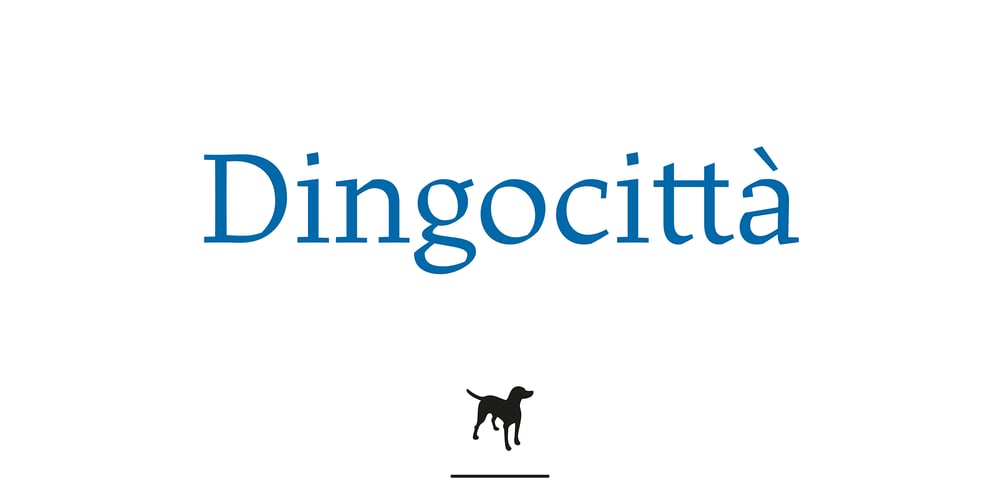
Dingocitta Font Family was designed by Erwin Krump and published by Erwin Krump. Dingocitta contains 12 styles and family package options. Dingocittà with its 12 fonts, contains a large amount of features like small capitals, different figure sets, automated fractions, ordinals, standard ligatures, contextual alternates (generates letter combinations to avoid form collisions by simultaneous maintaining word fugue) and discretionary ligatures. Dingocittà is suitable for a wide range of applications and can be readily combined with other fonts.